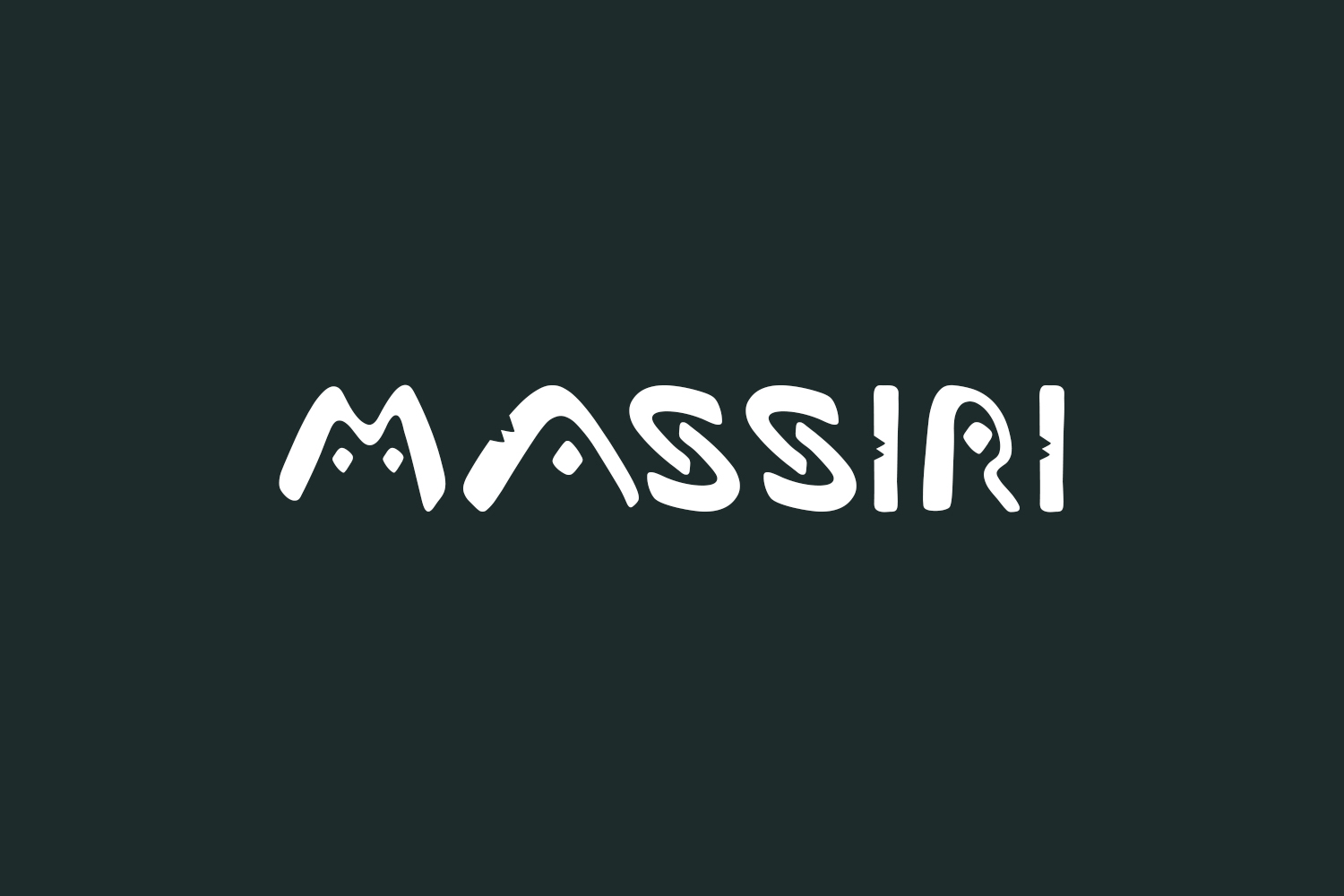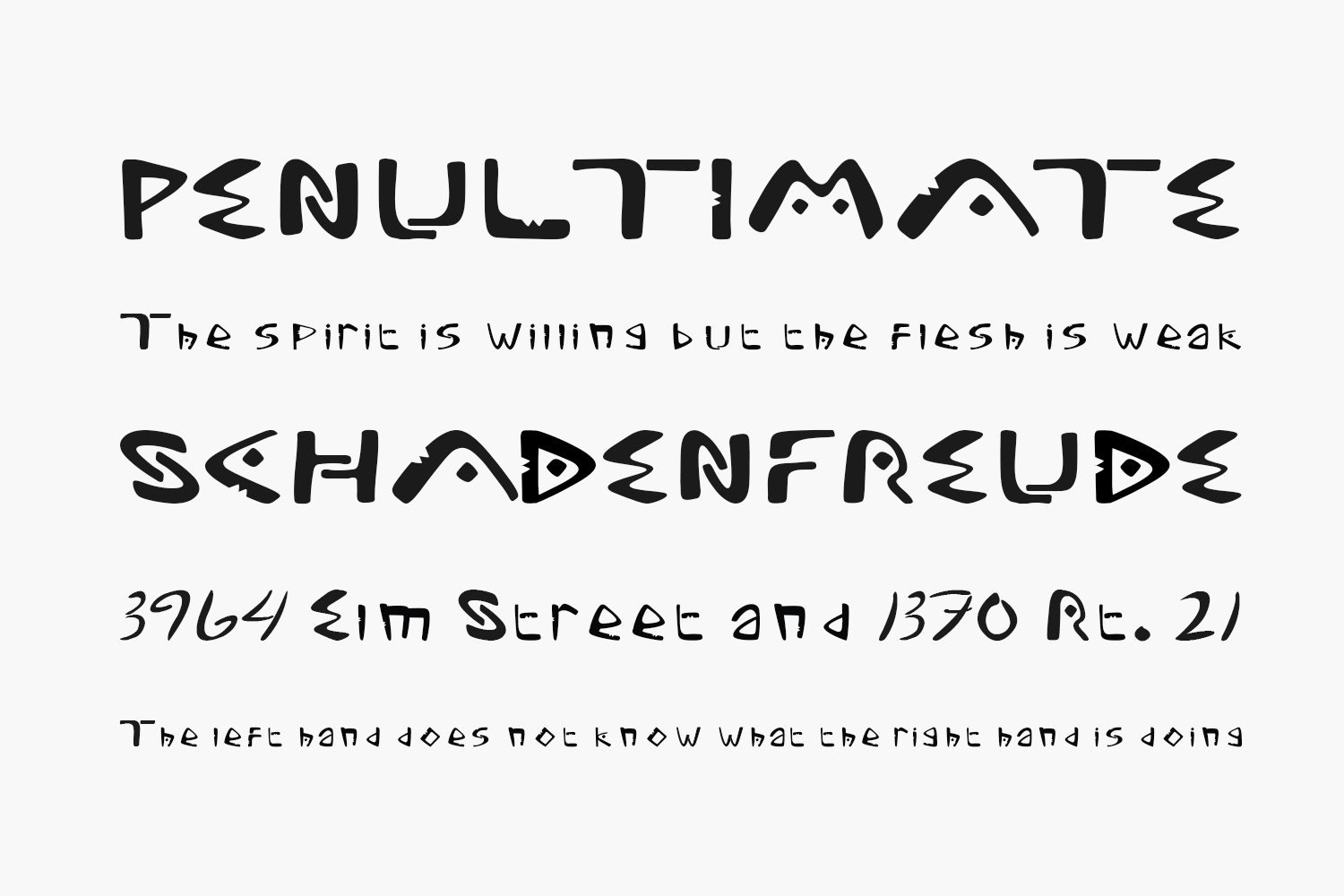
Massiri Free Font was inspired by the Lontara Script from the Bugis tribe, part of Indonesian Culture. Massiri Free Font is free for personal use only. Please purchase the full version for commercial use.
Designed by Christian Danuarta